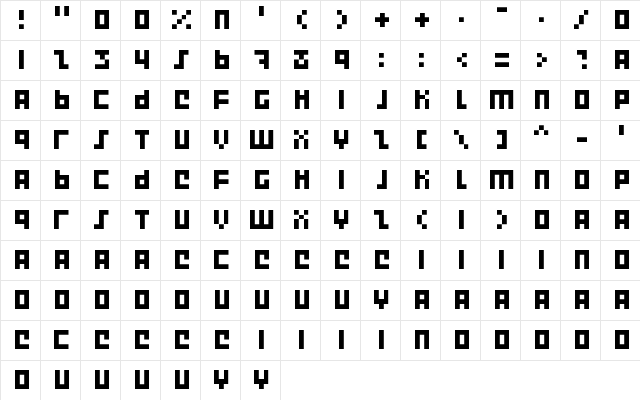
Execute 2000 Regular
Design Context for Execute 2000 Typeface
Execute 2000 offers clean, dependable letterforms without strong stylistic allegiance, making it a practical choice for designers who need flexibility.